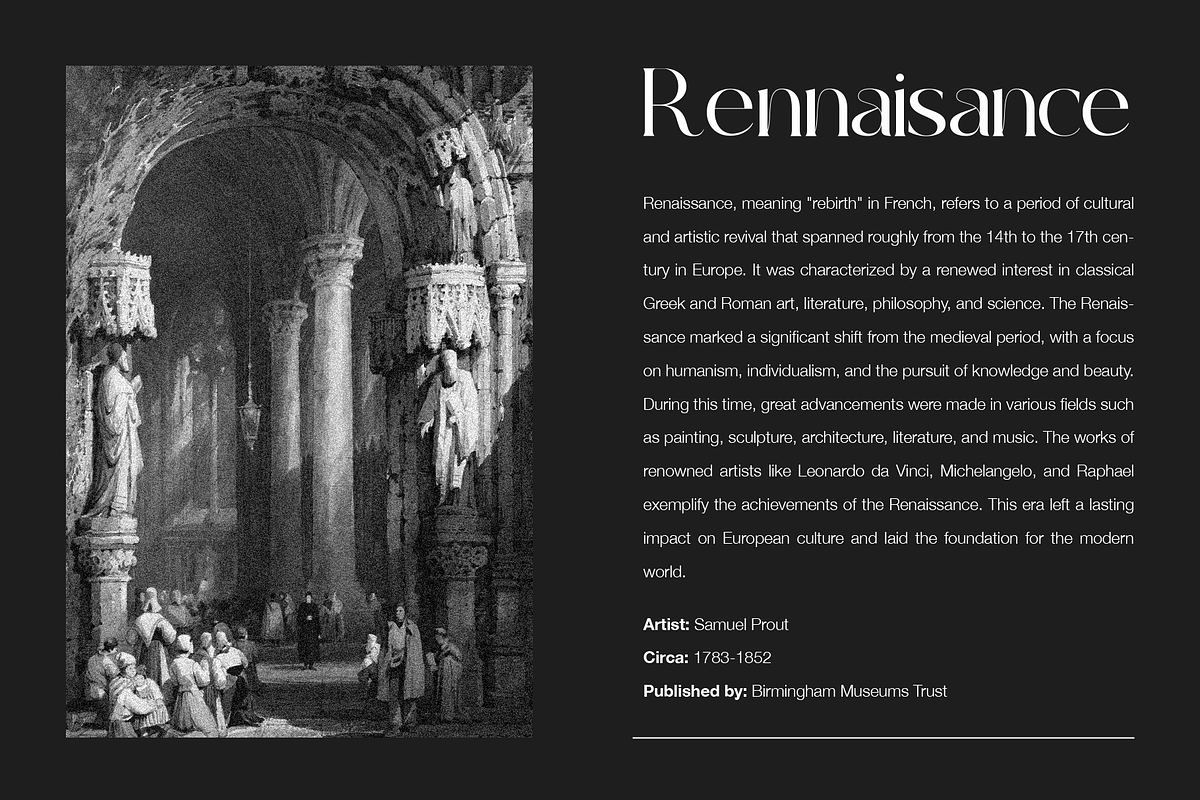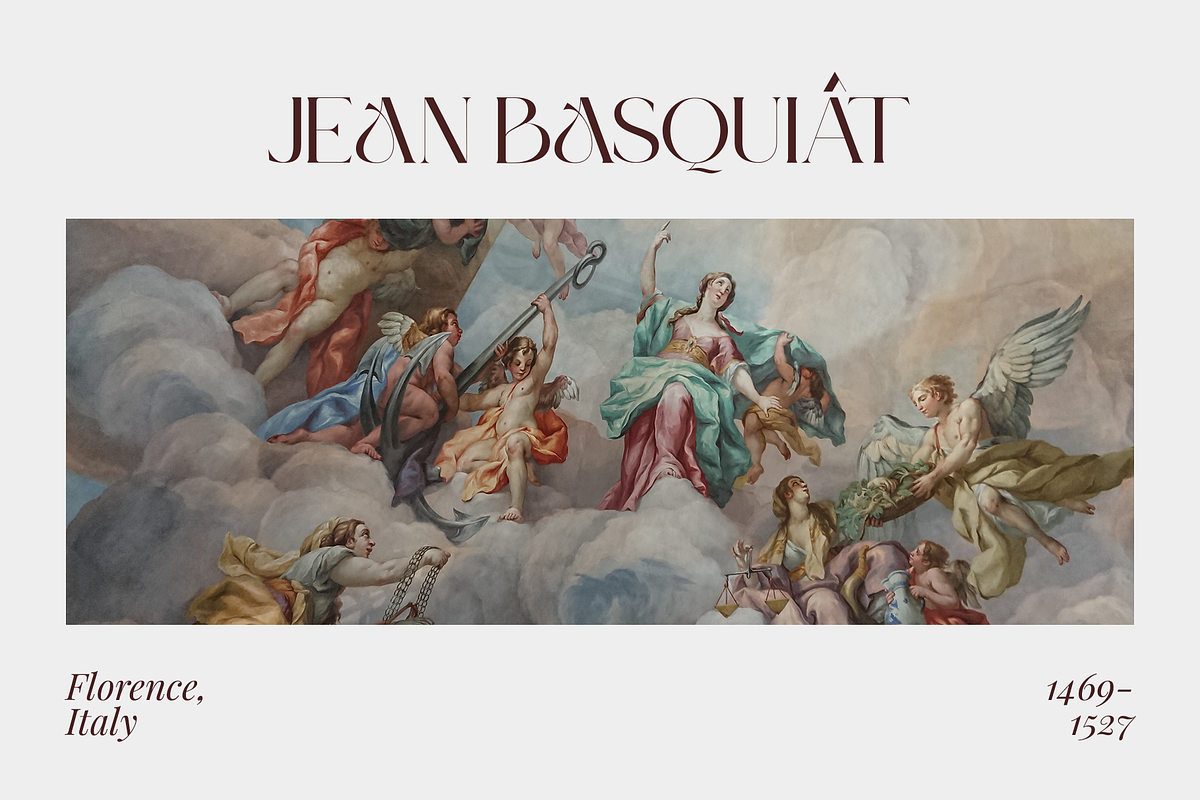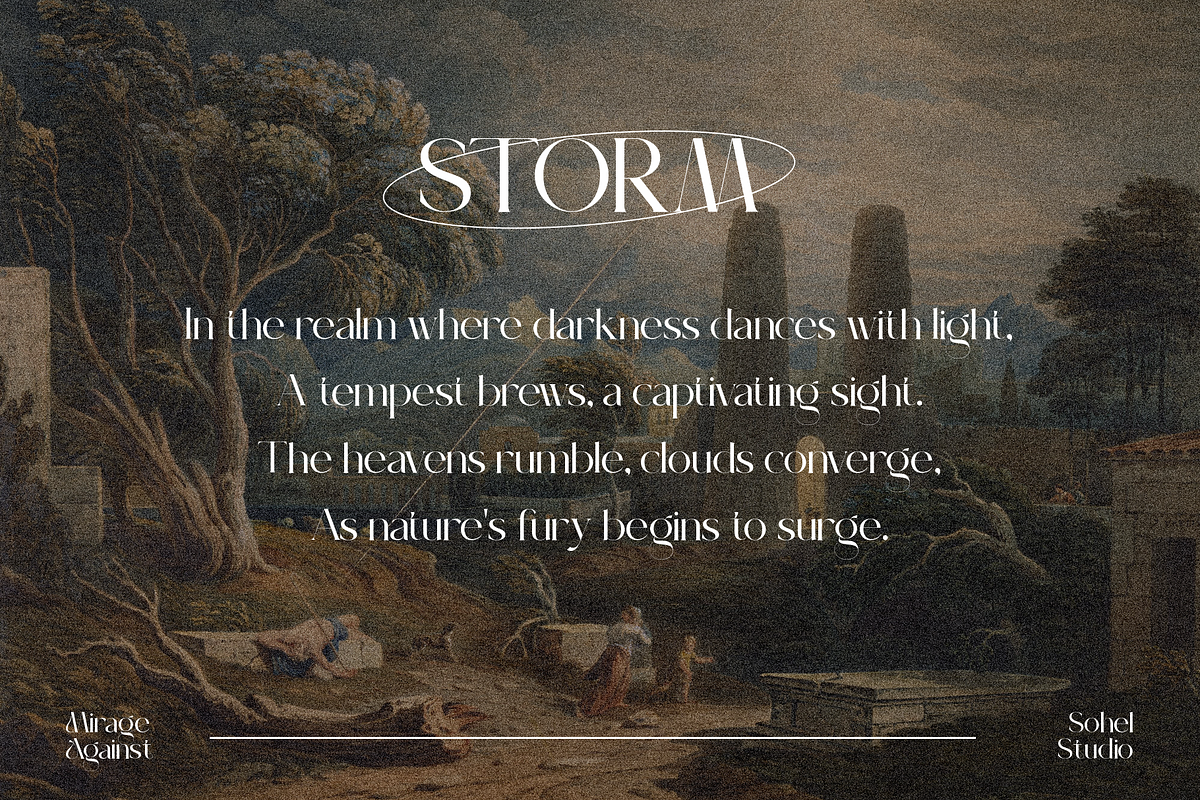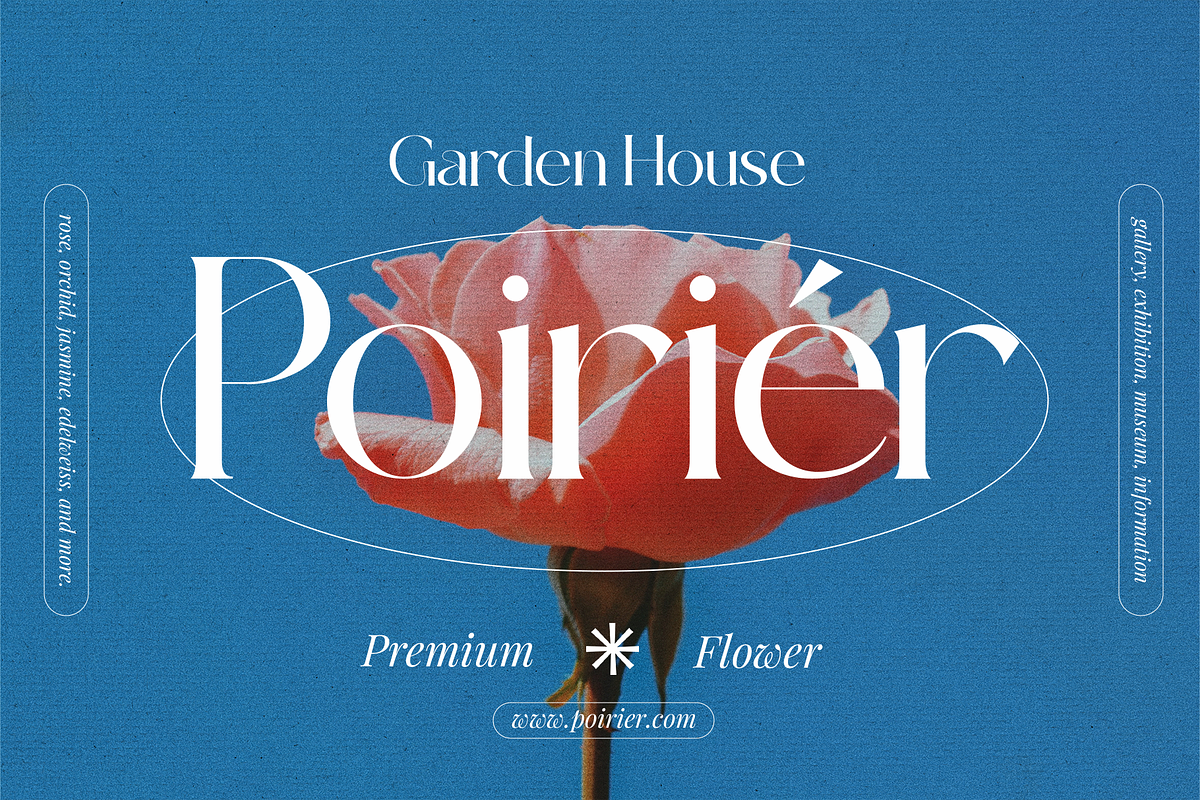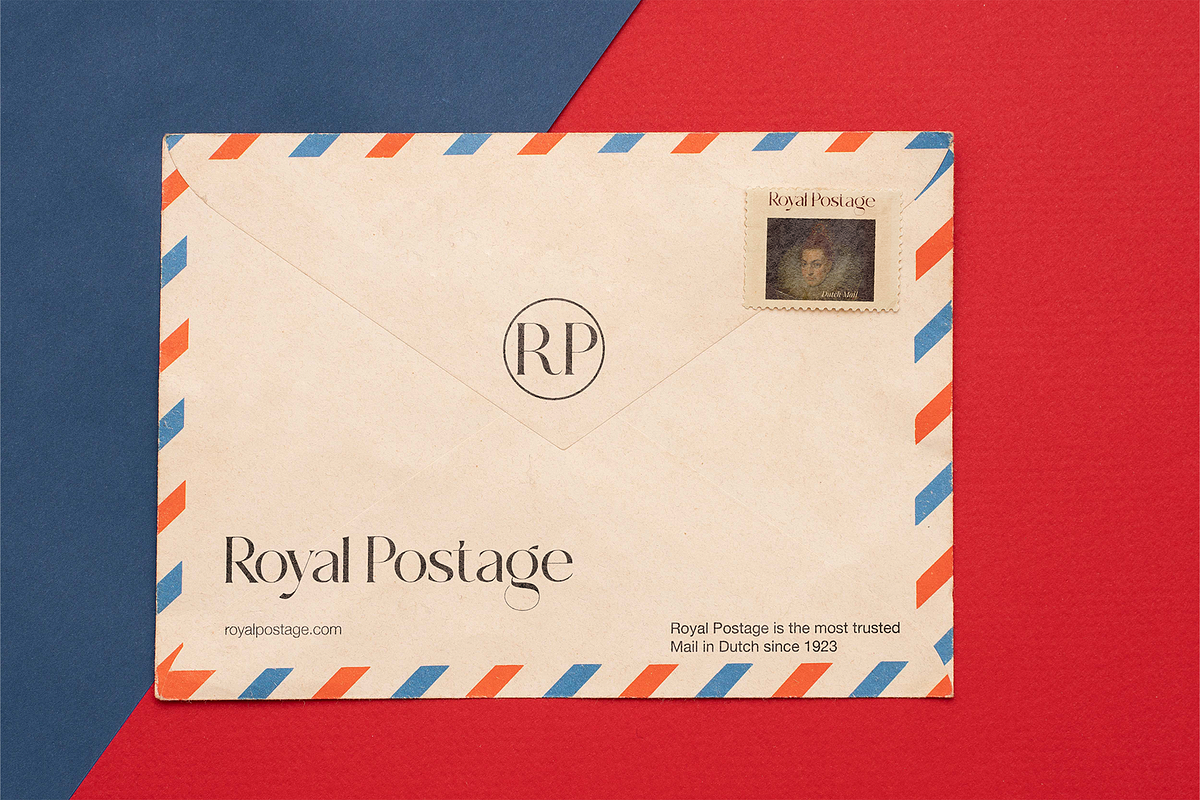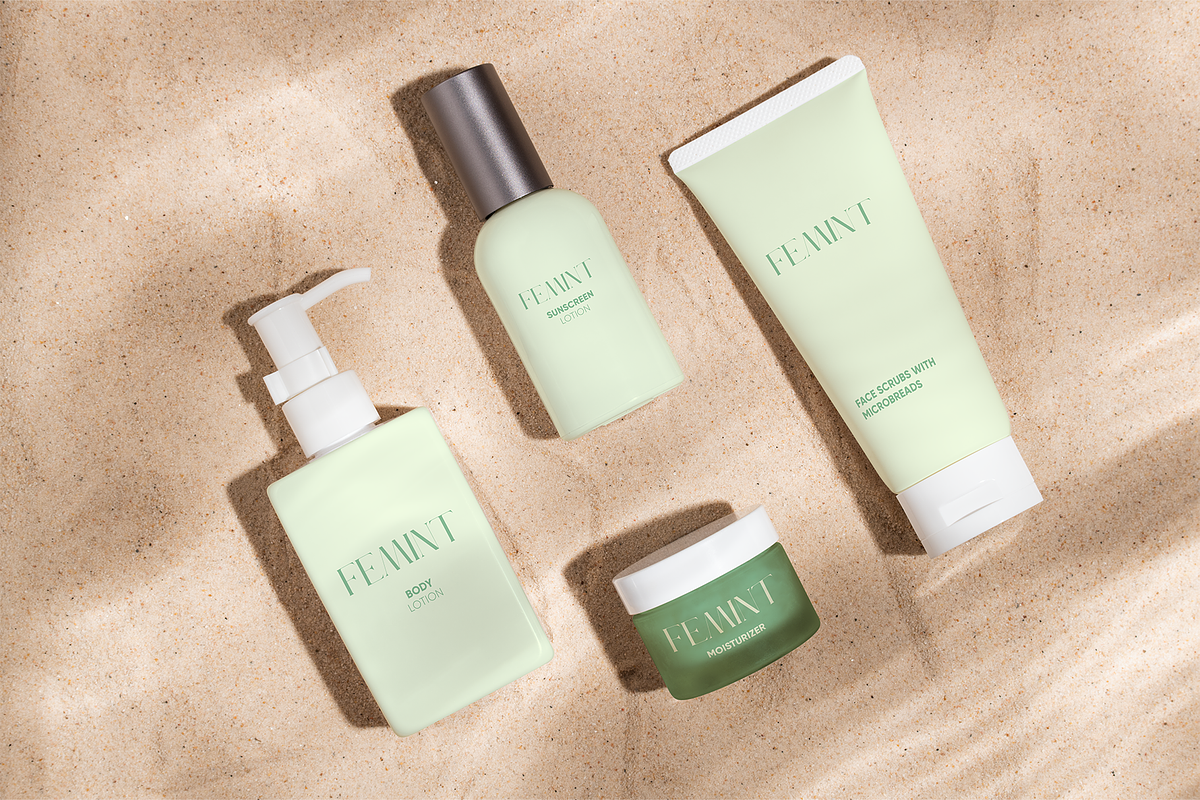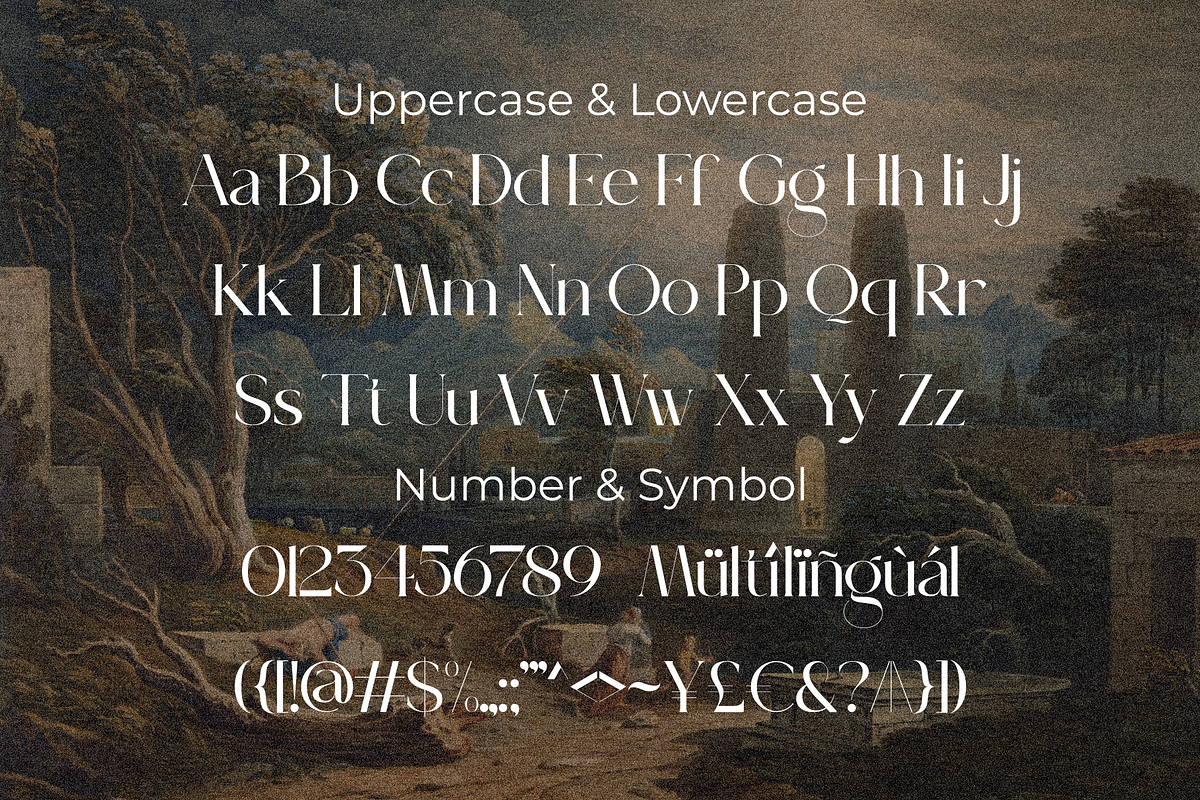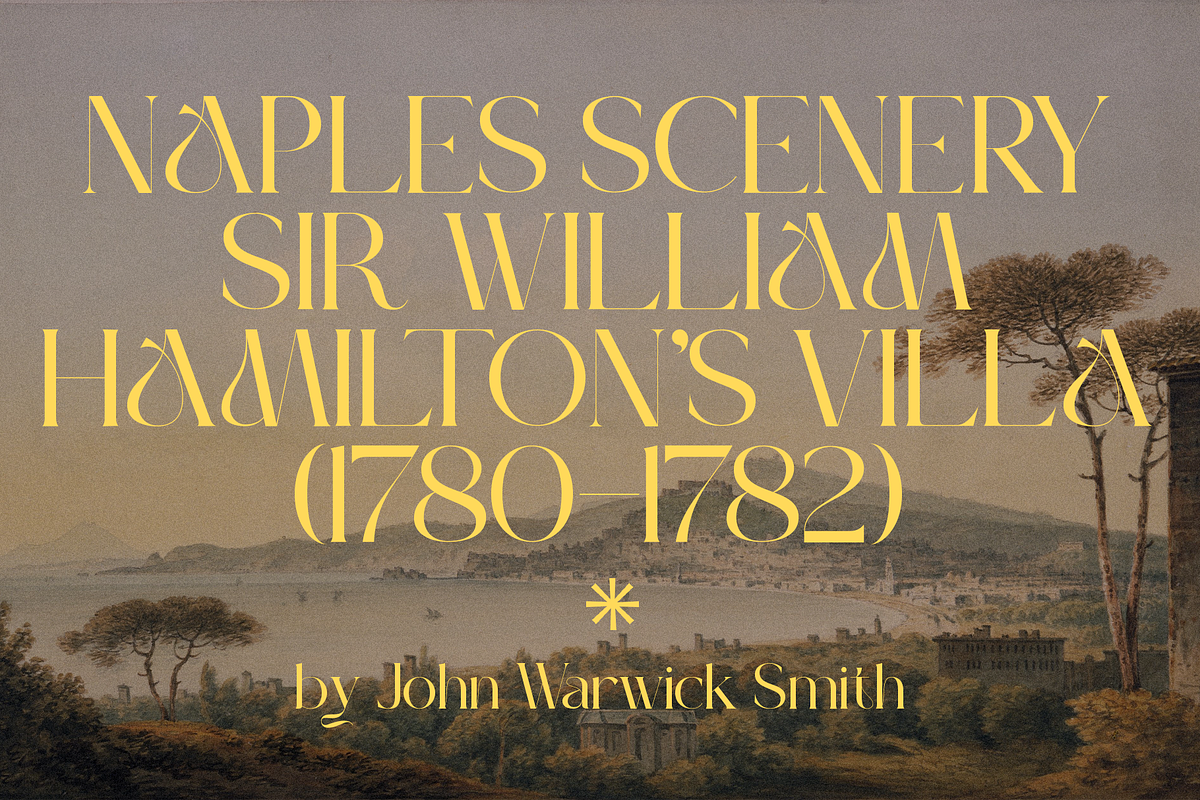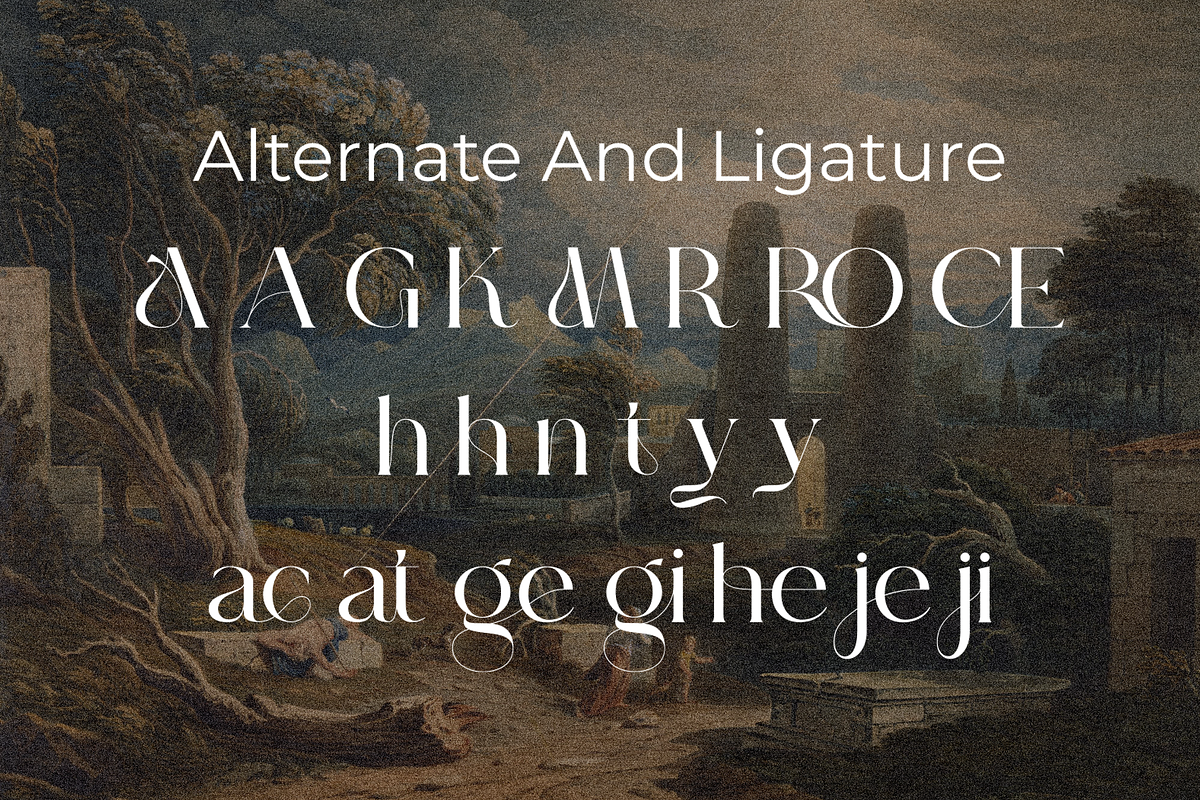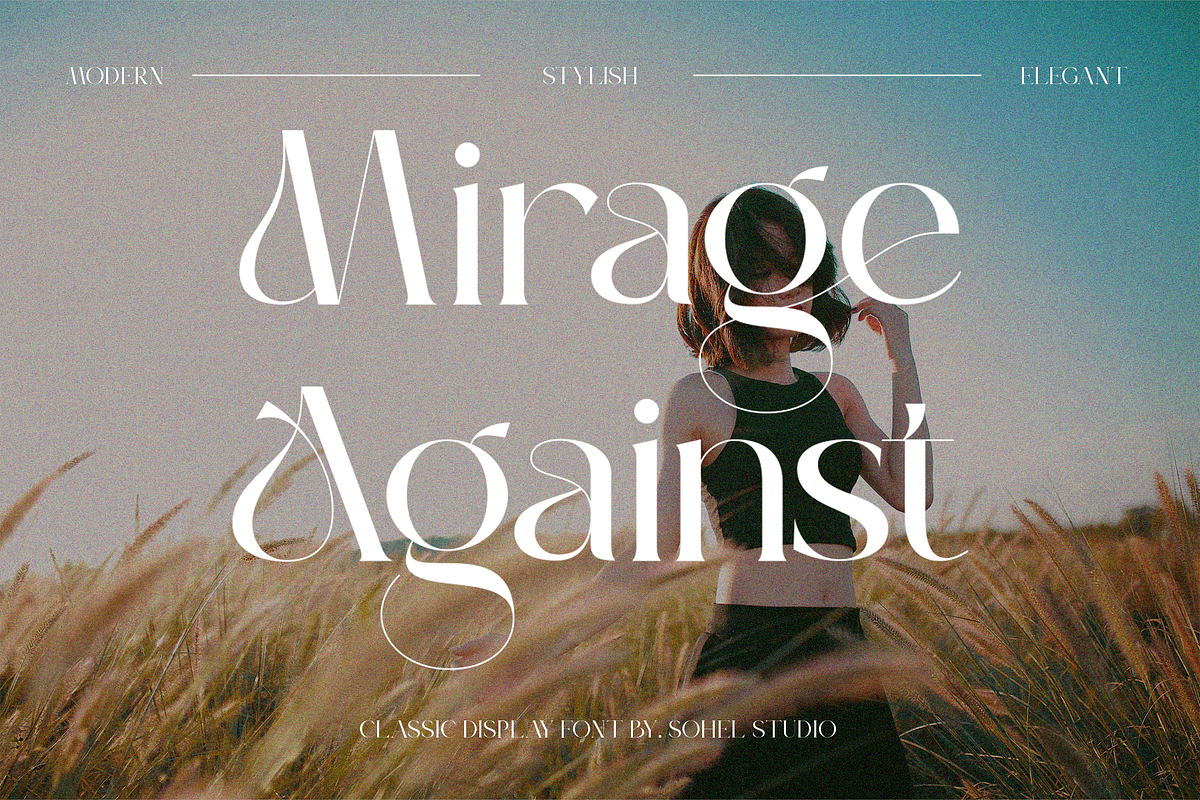
Mirage Against - Luxury Real Estate
Mirage Against is a Modern elegant serif typeface with Unique alternative , multilingual support with perfect kerning. This typeface is perfect for an elegant & luxury logo , classy editorial design, women's magazine, fashion brand , cosmetic brand, fashion promotion , modern advertising design, invitation card, art quote, home decoration , book/cover titles, special events, Tote bag, T-shirt, Advertising and much more.
Mirage Against Features:
- Uppercase And Lowercase